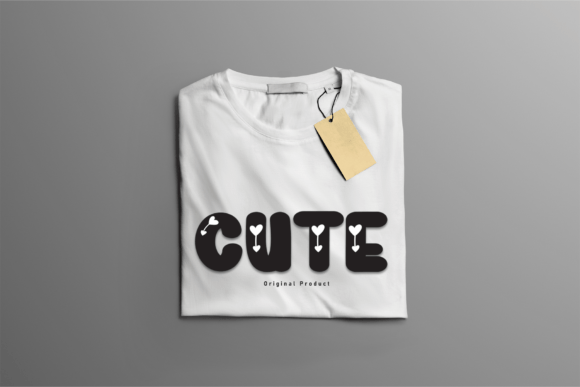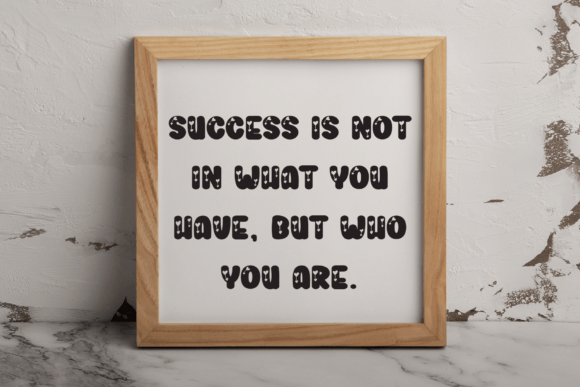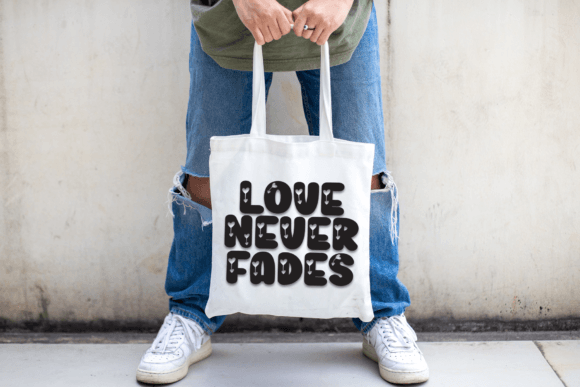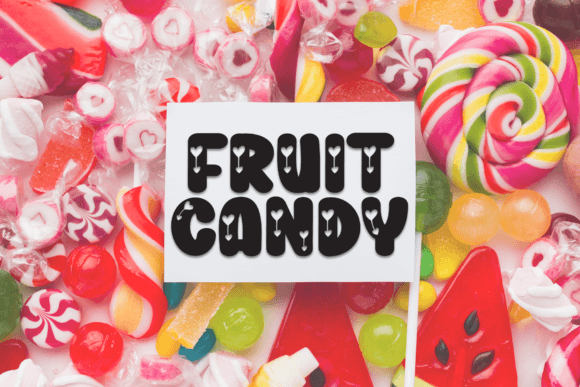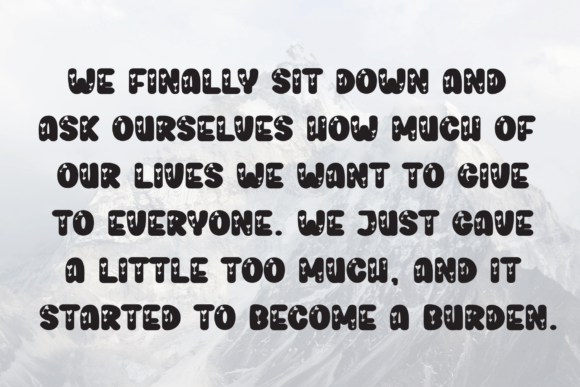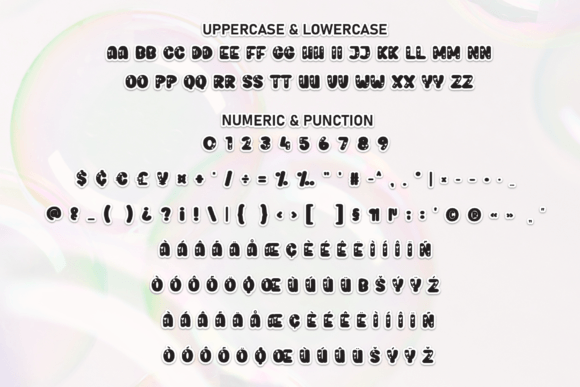
The Sweet Charm of Bubble Font: A Designer’s Delight
I’ll never forget the time I was working on a Valentine’s Day project for a client, and I just couldn’t find the right font to convey the playful, loving vibe they wanted. I scrolled through page after page of font options, but nothing seemed quite right. That was until I stumbled upon Bubble Font – a fun, bold font with hearts inside each letter that’s perfect for adding a touch of love to your designs.
An Honest Review of Bubble Font
- ✨ The playful hearts inside each letter add a touch of whimsy and charm to any design.
- ✅ The bold font is perfect for making a statement and grabbing attention.
- 💕 The font’s romantic vibe makes it ideal for Valentine’s Day, love-themed designs, or any project that needs a touch of sweetness.
- 🎉 It’s incredibly versatile and can be used for a wide range of design projects, from digital graphics to print materials.
While Bubble Font is an amazing addition to any design project, there are a few things to keep in mind:
- 🤔 The font’s bold style can be overwhelming if not used thoughtfully. Make sure to balance it with other design elements.
- ⚠️ As with any font that features intricate details, it may not be suitable for very small font sizes or low-resolution images.
The Story Behind Bubble Font
Bubble Font was created with love and care by a talented designer who wanted to capture the essence of Valentine’s Day in a single font. Inspired by the joy of love and relationships, the designer crafted a font that’s both playful and charming. Today, Bubble Font is enjoyed by designers and crafters around the world, adding a touch of whimsy to a wide range of projects.
Q: What type of projects is Bubble Font best suited for?
A: Bubble Font is perfect for Valentine’s Day designs, love-themed projects, and any design that needs a playful, charming touch.
Q: Is Bubble Font available in different languages?
A: Bubble Font may not support all languages, but it does include a range of characters and glyphs to help you create beautiful text.